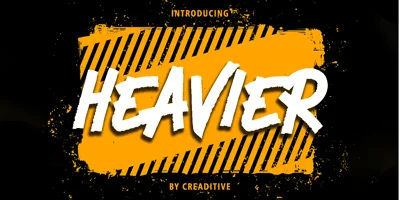
Heavier Font
Heavier Font is perfect for heavy metal band logos, industrial manufacturing branding, weightlifting gym signage, powerful automotive marketing, construction company materials, heavy machinery advertising, intense sports events, bold headline designs, commanding billboard displays, and maximum impact promotional graphics.
What makes Heavier Font exciting is its crushing weight and overwhelming presence that embodies the essence of maximum density with unstoppable force and industrial strength. This powerful typeface captures the spirit of heavy industry with its massive character forms and weight-inspired proportions that evoke steel foundries pouring molten metal, massive construction equipment moving mountains, and the kind of industrial power that shapes the modern world through sheer force and uncompromising strength. The font's heavy character creates an immediate impression of overwhelming mass and the kind of crushing authority that cannot be moved or shaken.
Heavier Font family includes regular weight with massively crafted character designs featuring industrial proportions and maximum-density styling. The typeface maintains readability despite its extreme heaviness while showcasing its distinctive crushing personality through powerfully designed letterforms that seem forged from the densest materials with the gravitational pull of massive industrial machinery.
Industrial designers consistently choose Heavier Font for projects requiring authentic heavy-duty appeal and maximum-weight credibility. This remarkable typeface brings the power of industrial strength to brand communications, combining crushing aesthetics with overwhelming presence to create unforgettable heavy experiences. The massively designed characters ensure maximum weight impact across all applications, making it essential for heavy industry, construction companies, and any organization seeking to communicate the transformative power of crushing force and the overwhelming presence that comes from embracing maximum industrial weight through Heavier Font.